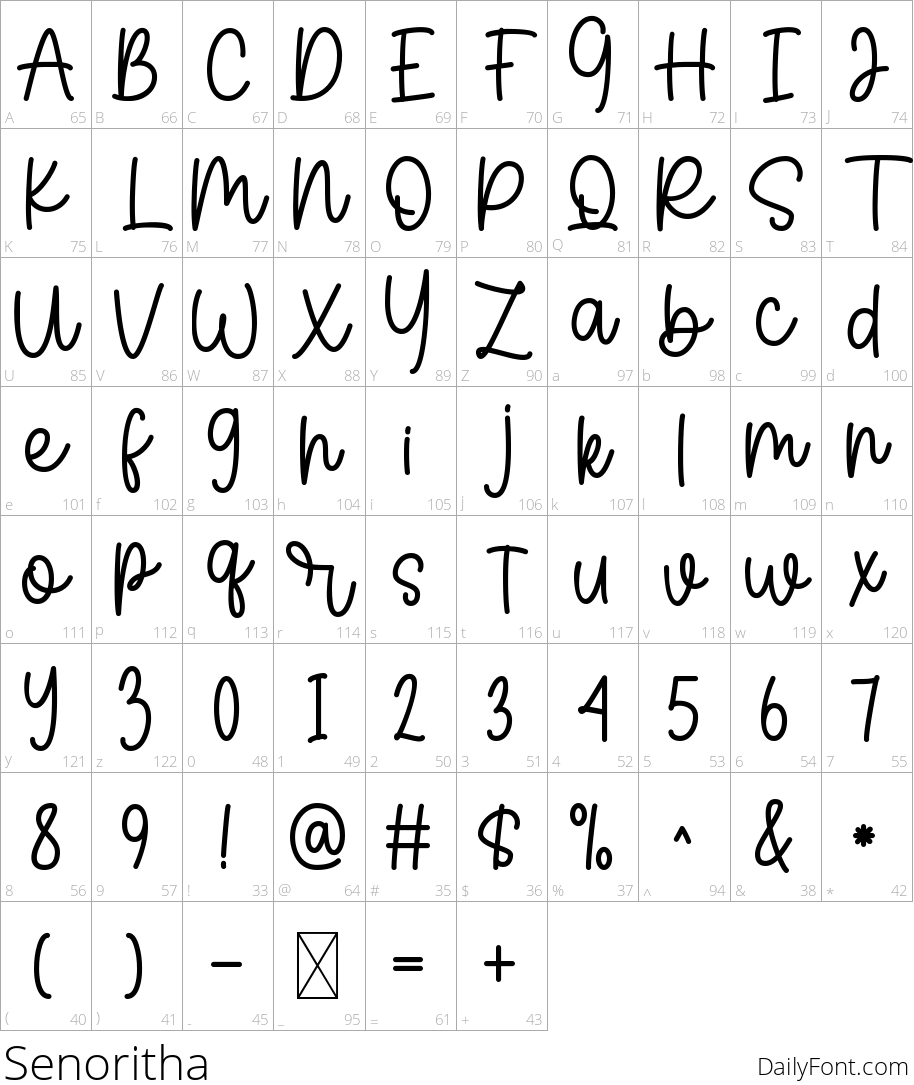
Senoritha
Senoritha is a versatile font family that includes three distinct styles: a handwritten font, a script font, and a sans serif font. Designed to beautifully complement one another, these fonts allow for endless creative possibilities in your projects. Whether you're crafting invitations, designing marketing materials, or creating digital content, Senoritha adds a chic and cheerful touch that elevates your work.
The handwritten style conveys a personal touch, making it perfect for casual communications and personalized branding. The script font offers a stylish flair, ideal for elegant announcements and sophisticated visuals. Meanwhile, the sans serif font provides clarity and modernity, suitable for any professional or contemporary design. Additionally, Senoritha is PUA encoded, allowing you to easily access all glyphs and swashes for a more customized feel in your designs. Unlock the full potential of your creativity with Senoritha, the font trio that brings joy and charm to your crafts.